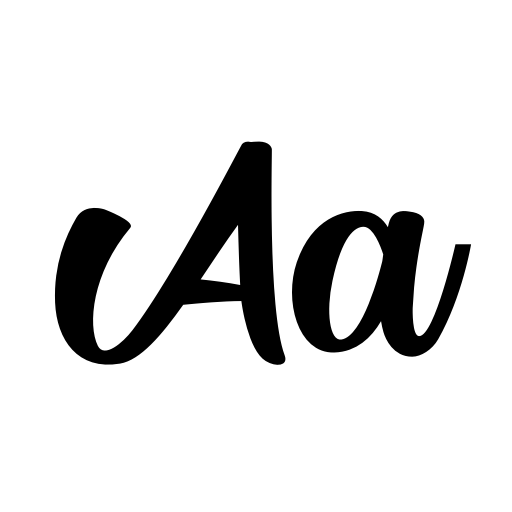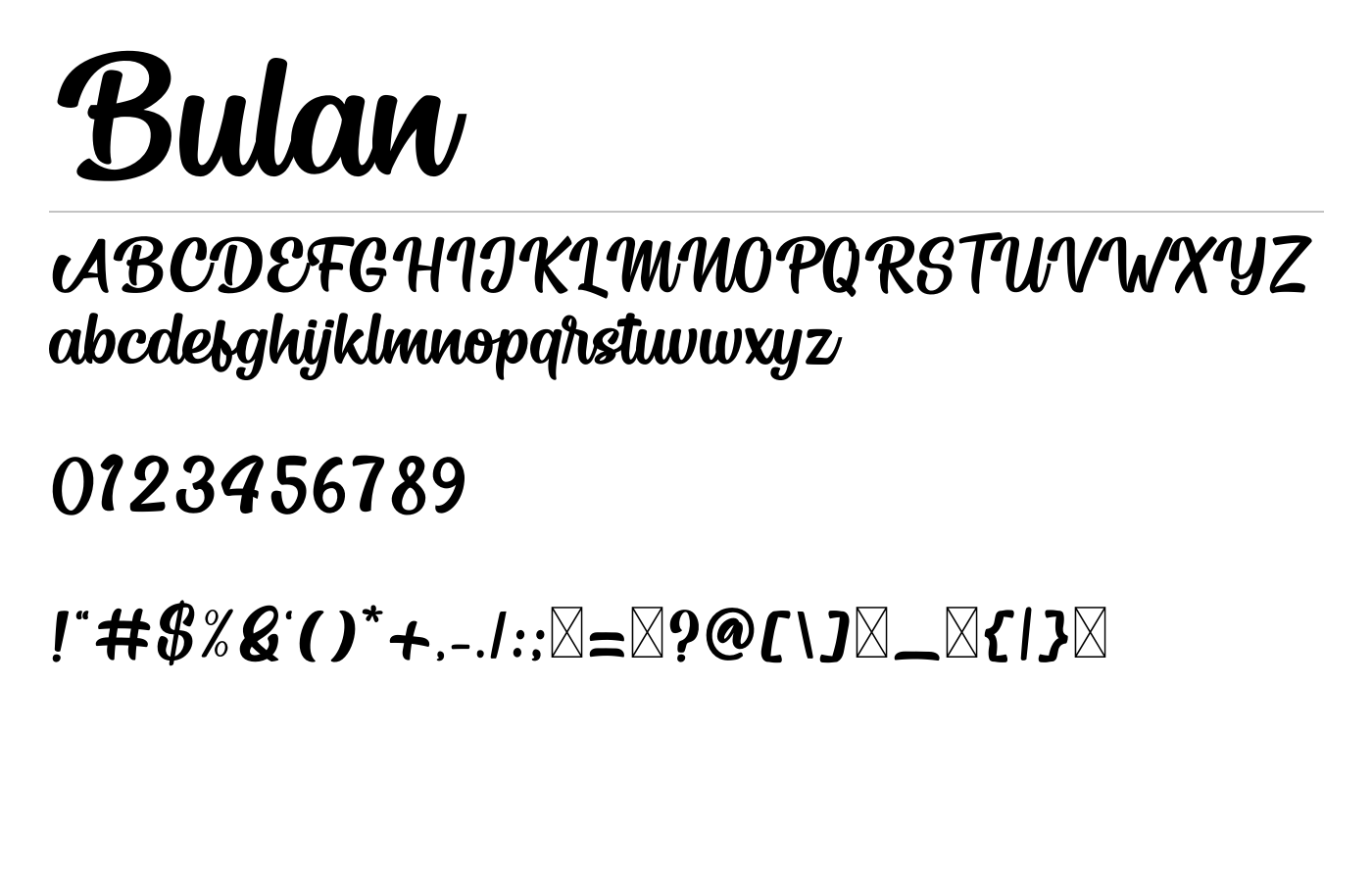
Bulan is a lively and friendly script font with a smooth, handwritten style that feels warm and approachable. Its moderate weight and slightly condensed letterforms give it good readability while retaining a playful, casual personality, making it ideal for branding, invitations, and editorial designs that want to convey a personal, inviting tone. With its elegant curves and clear lowercase and uppercase characters, Bulan works well in headlines and logos where a touch of charm and character is desired.
Bulan Font
About Bulan Font